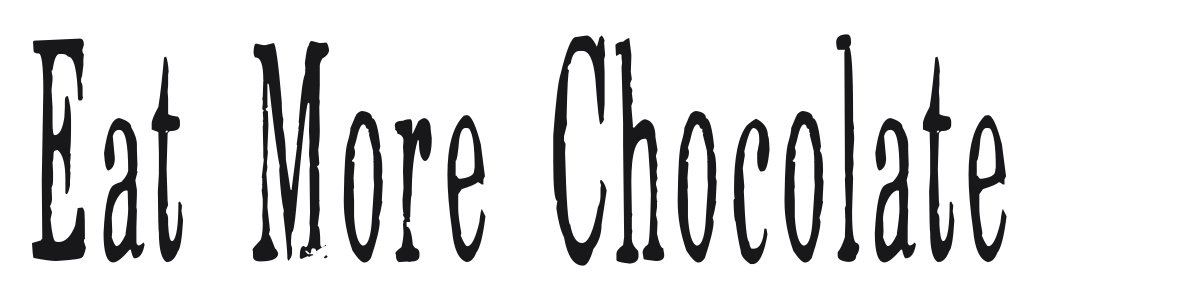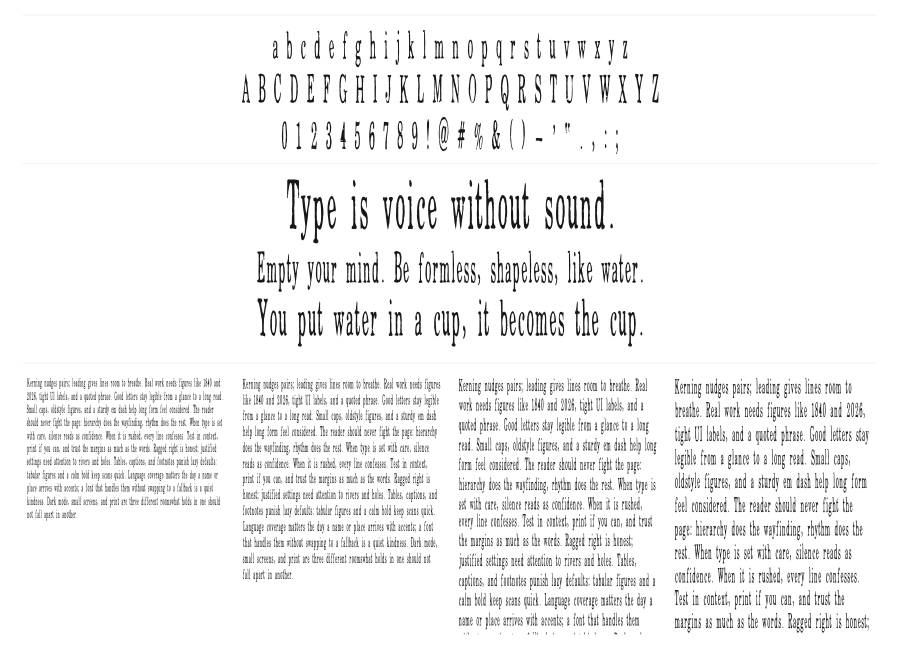
Eat More Chocolate
Eat More Chocolate is a tall, condensed distressed serif with a heavy letterpress-worn quality. The rough texture and ink-break irregularities give it an authentic handcrafted feel, somewhere between old woodblock type and a worn rubber stamp. It works well for food packaging, artisan branding, and any headline that needs a vintage handmade edge.